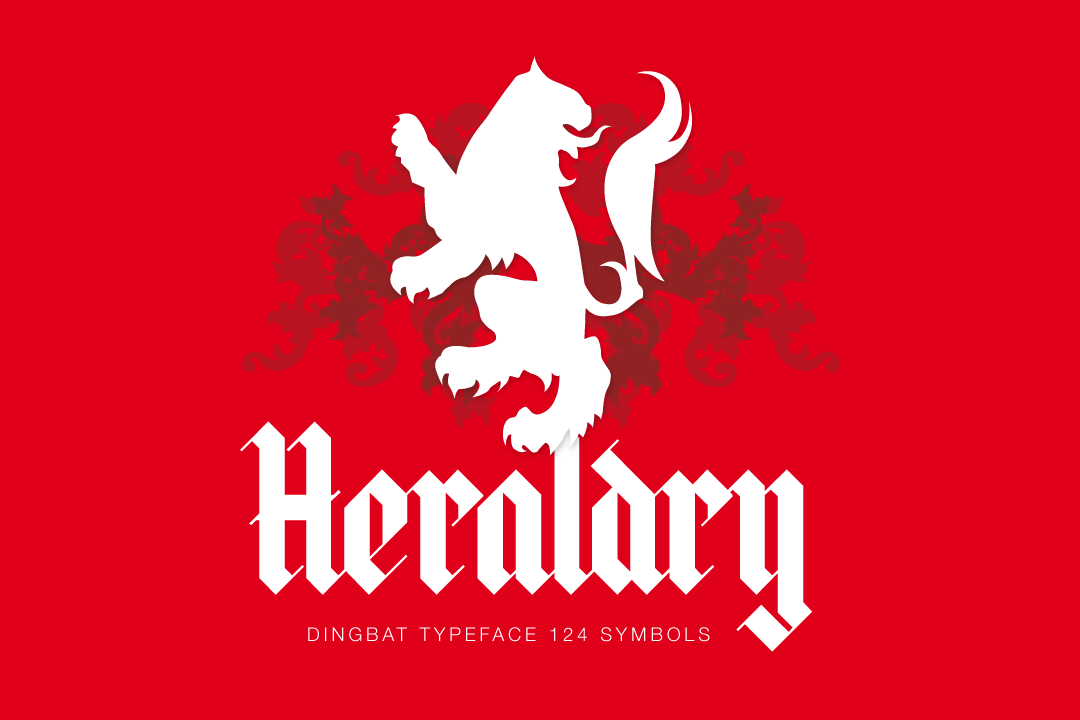
Heraldry
Heraldry is a dingbat font that combines a series of medieval design elements, allowing a designer to create a personal coat of arms or other heraldic crest.